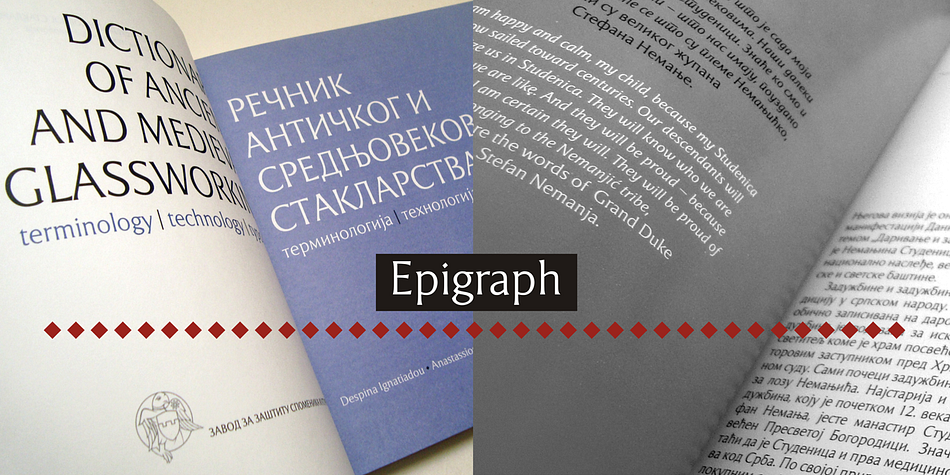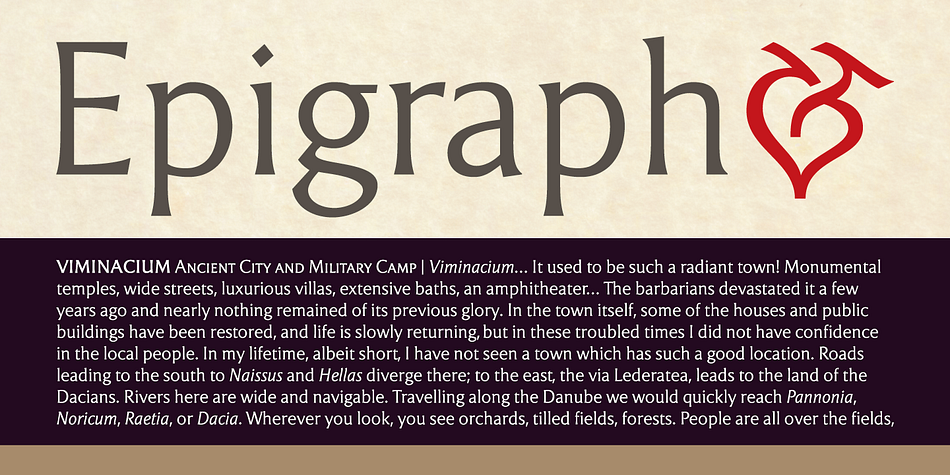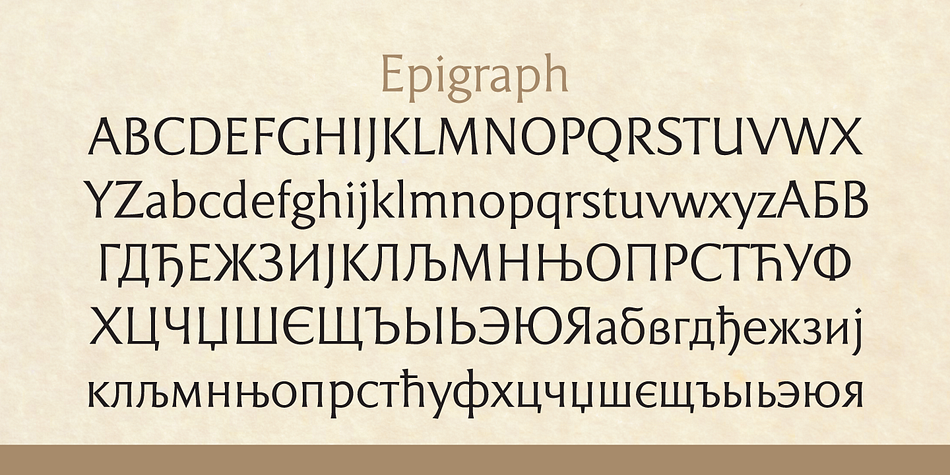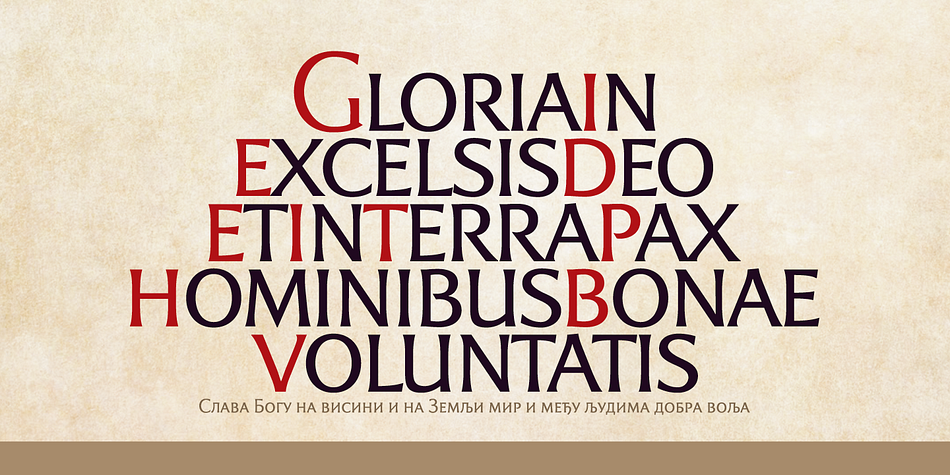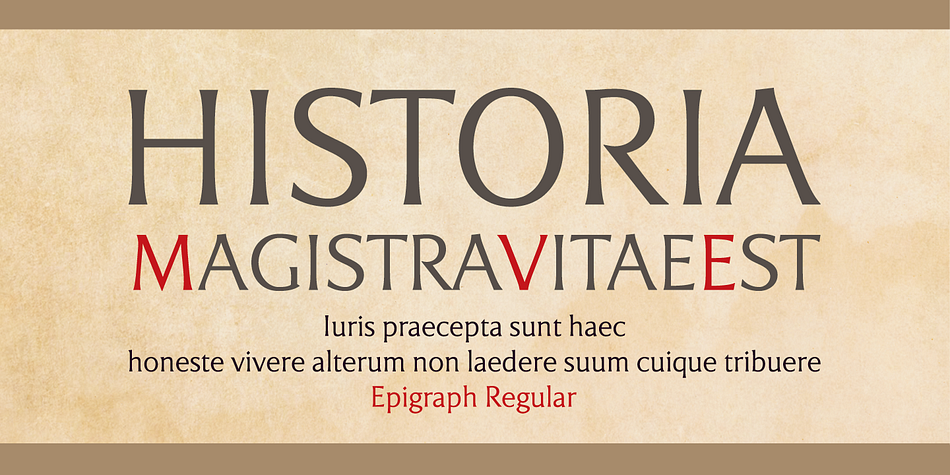
Epigraph is a serif font family. This typeface has five styles and was published by PESIC.
Epigraph is a font which has role models in the lapidary letter. The glyphs doesn’t have serifs, but it has humanistic qualities and the nucleus of a serif. The differences between thick and thin stokes are small, and the font design is unobtrusive and graceful with traditional proportions.
Epigraph has satisfactory readibility, it is suitable for the text and brochures headlines, catalogues, books and other typographic demands with historical, archeological and artistic content, as well as other etiquette.
Character map contains all Latin glyphs of European languages and Cyrillic. Besides its regular version it has Italic, Bold, Bold Italic and SmallCaps.